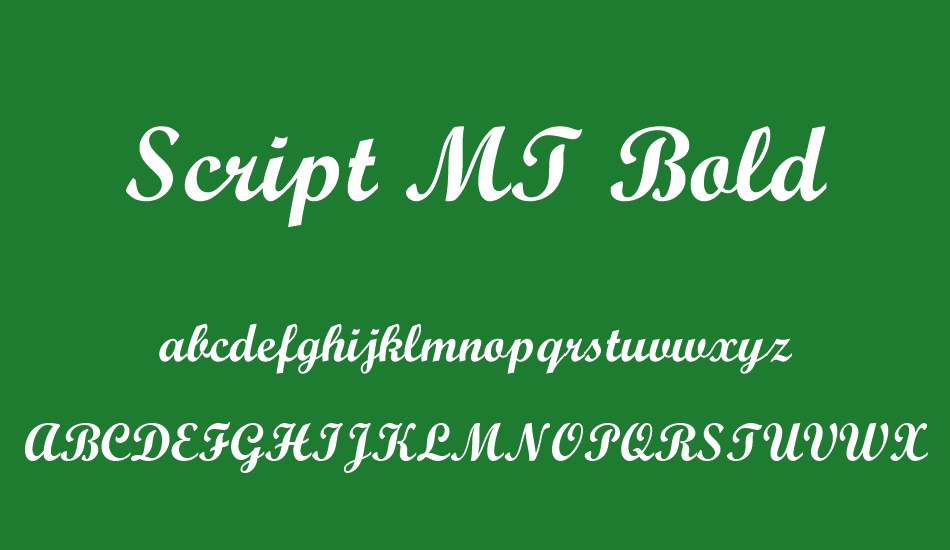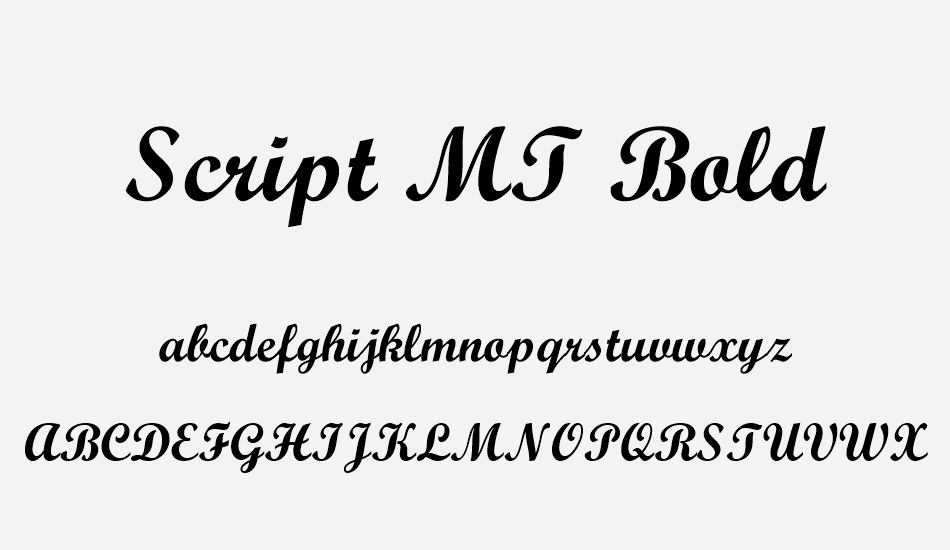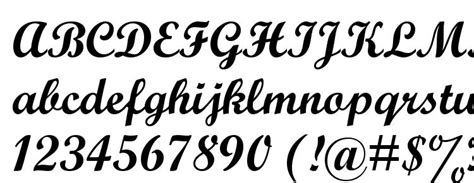
Script Mt Bold Font
Script Mt Bold Font - Script mt bold is a bold opentype font. 2 users have given the font a rating of 5.0 out of 5. This script font has a complete set of uppercase, lowercase, ligature, alternative, punctuation, numbers,. You can find more information. Web script mt bold font is a modern script typeface. Every font is free to download! Web looking for script mt bold fonts? It has been downloaded 326 times. Web in this post, we are going to share an unusual heavy font that is known as script mt bold font. Click to find the best 6 free fonts in the script mt bold style.
Web looking for script mt bold fonts? It has been downloaded 326 times. 2 users have given the font a rating of 5.0 out of 5. Web in this post, we are going to share an unusual heavy font that is known as script mt bold font. Script mt bold is a bold opentype font. Every font is free to download! Click to find the best 6 free fonts in the script mt bold style. Web script mt bold font is a modern script typeface. This script font has a complete set of uppercase, lowercase, ligature, alternative, punctuation, numbers,. You can find more information.
Web in this post, we are going to share an unusual heavy font that is known as script mt bold font. Script mt bold is a bold opentype font. 2 users have given the font a rating of 5.0 out of 5. Web script mt bold font is a modern script typeface. You can find more information. Web looking for script mt bold fonts? Click to find the best 6 free fonts in the script mt bold style. Every font is free to download! It has been downloaded 326 times. This script font has a complete set of uppercase, lowercase, ligature, alternative, punctuation, numbers,.
This script font has a complete set of uppercase, lowercase, ligature, alternative, punctuation, numbers,. It has been downloaded 326 times. Web looking for script mt bold fonts? Click to find the best 6 free fonts in the script mt bold style. 2 users have given the font a rating of 5.0 out of 5.
Web looking for script mt bold fonts? Web script mt bold font is a modern script typeface. Every font is free to download! Script mt bold is a bold opentype font. You can find more information.
Web in this post, we are going to share an unusual heavy font that is known as script mt bold font. Every font is free to download! Web looking for script mt bold fonts? Click to find the best 6 free fonts in the script mt bold style. 2 users have given the font a rating of 5.0 out of.
Web in this post, we are going to share an unusual heavy font that is known as script mt bold font. Web looking for script mt bold fonts? Web script mt bold font is a modern script typeface. Click to find the best 6 free fonts in the script mt bold style. It has been downloaded 326 times.
Every font is free to download! Web script mt bold font is a modern script typeface. Click to find the best 6 free fonts in the script mt bold style. 2 users have given the font a rating of 5.0 out of 5. It has been downloaded 326 times.
Script mt bold is a bold opentype font. It has been downloaded 326 times. Web in this post, we are going to share an unusual heavy font that is known as script mt bold font. Click to find the best 6 free fonts in the script mt bold style. Web looking for script mt bold fonts?
Web script mt bold font is a modern script typeface. You can find more information. Script mt bold is a bold opentype font. Every font is free to download! Web in this post, we are going to share an unusual heavy font that is known as script mt bold font.
Script Mt Bold Font Free Download
Web in this post, we are going to share an unusual heavy font that is known as script mt bold font. 2 users have given the font a rating of 5.0 out of 5. Web script mt bold font is a modern script typeface. Web looking for script mt bold fonts? It has been downloaded 326 times.
Download Free Font Script MT Bold
This script font has a complete set of uppercase, lowercase, ligature, alternative, punctuation, numbers,. Web looking for script mt bold fonts? 2 users have given the font a rating of 5.0 out of 5. Click to find the best 6 free fonts in the script mt bold style. Web in this post, we are going to share an unusual heavy.
Script MT Bold font font
It has been downloaded 326 times. 2 users have given the font a rating of 5.0 out of 5. Web looking for script mt bold fonts? Web script mt bold font is a modern script typeface. Web in this post, we are going to share an unusual heavy font that is known as script mt bold font.
You Can Find More Information.
Every font is free to download! Web script mt bold font is a modern script typeface. 2 users have given the font a rating of 5.0 out of 5. Web in this post, we are going to share an unusual heavy font that is known as script mt bold font.
Click to find the best 6 free fonts in the script mt bold style. This script font has a complete set of uppercase, lowercase, ligature, alternative, punctuation, numbers,. It has been downloaded 326 times. Script mt bold is a bold opentype font.